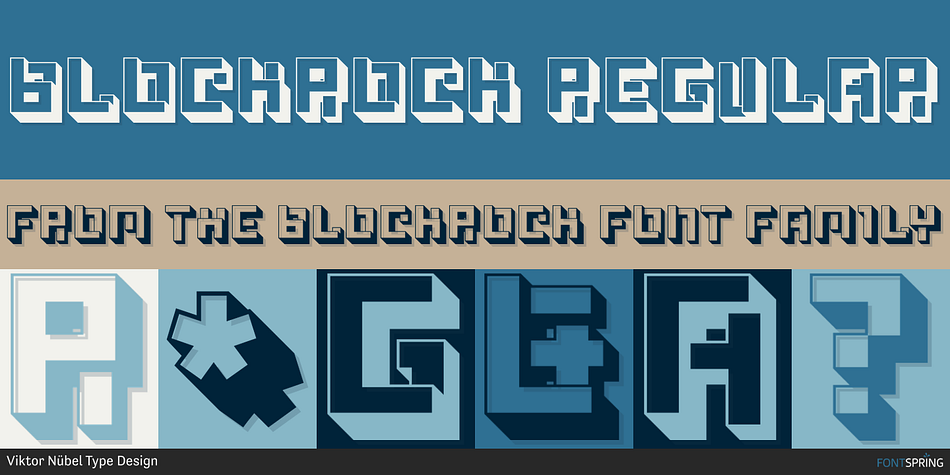
BLOCKROCK REGULAR
Blockrock is a display sans font family. This typeface has twelve styles and was published by Viktor Nübel Type Design.
BLOCKROCK is a 3-dimensional, uppercase typeface inspired by blocks of buildings seen from a bird’s eye view—prefabricated slab-construction buildings (Plattenbauten) of the former GDR.
There are two versions of this typeface: BLOCKROCK, which contains more complex ›buildings‹, and BLOCKROCK Simple, a simplified version with more straight ›buildings‹ In BLOCKROCK Simple you will find also a difference in uppercase letters and lowercase letters. The first one is higher buildings and the second one is lower.
BLOCKROCK & BLOCKROCK Simple come with six styles/weights: Regular, Outline, Solid, Roof, Side, and Front. The weights can easily be combined to build proper three-dimensional letter buildings